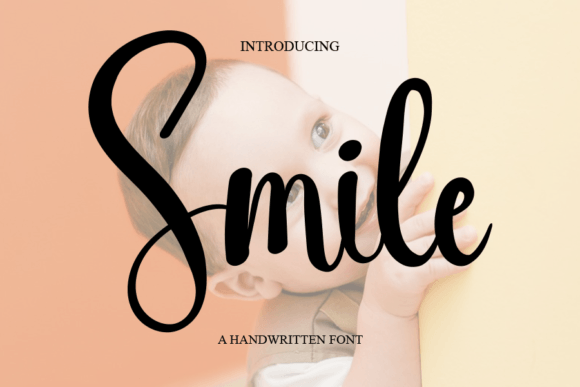
Smile Handwritten Font – Stylish and Smooth Typeface
The Smile Handwritten Font is a modern and elegant script typeface designed to bring charm and creativity to your projects. With its smooth handwritten strokes and graceful flow, it adds sophistication to both digital and print designs. Whether you’re working on greeting cards, crafts, or branding, this font ensures your work shines with personality.
A Script Font with Style
The Smile Handwritten Font blends balanced handwritten curves with a polished structure. Its smooth lines bring warmth and creativity, while its readability ensures it remains practical. Because of this, it adapts beautifully to personal projects as well as professional branding.
Perfect for Crafts and Greeting Cards
One of the best uses of the Smile Handwritten Font is in invitations, greeting cards, and posters. Its flowing style brings elegance to personal messages. At the same time, it adds a refined handwritten look to packaging, social media graphics, and DIY projects. This makes it versatile and dependable for many uses.
The Smile Handwritten Font works well across multiple contexts. From product packaging and logos to digital advertisements and business cards, it adds a handwritten charm that feels stylish and modern. Its versatility makes it ideal for creatives who need both beauty and functionality in their designs.
Why Designers Love Smile Font
Designers love the Smile HandwrittenFont because it combines elegance with usability. Its graceful handwritten strokes make designs more expressive, while its clarity keeps them professional. This balance ensures it is an excellent choice for both casual and formal projects.
In summary, the Smile HandwrittenFont is a stylish, smooth, and versatile script typeface. With its elegant handwritten strokes, quick installation, and wide usability, it is perfect for greeting cards, posters, branding, and crafts. Don’t miss the chance to download Smile HandwrittenFont and bring elegance to your creative projects.